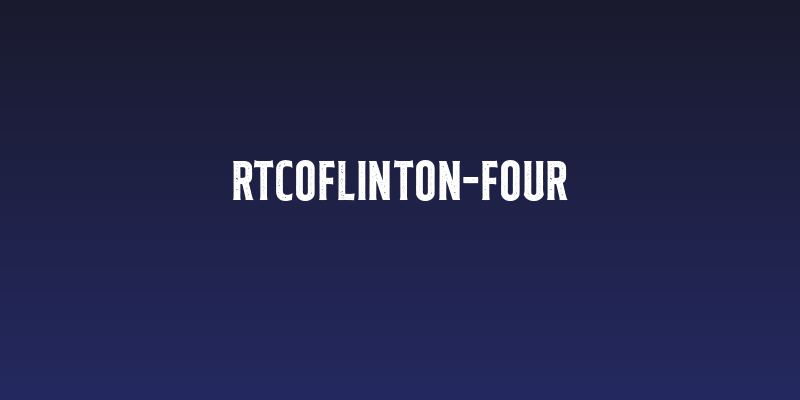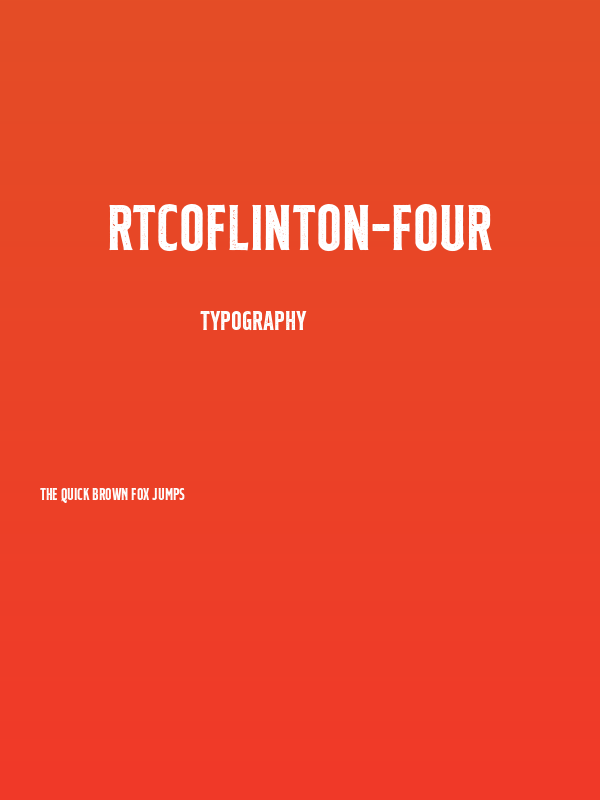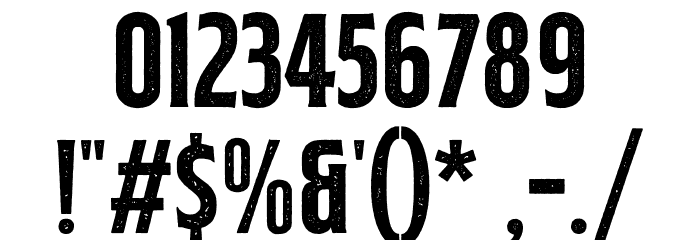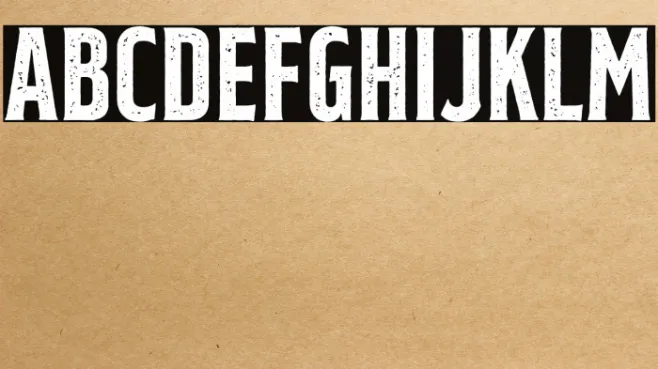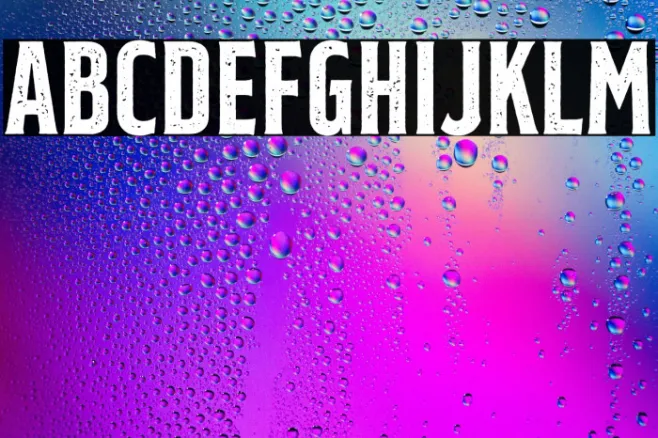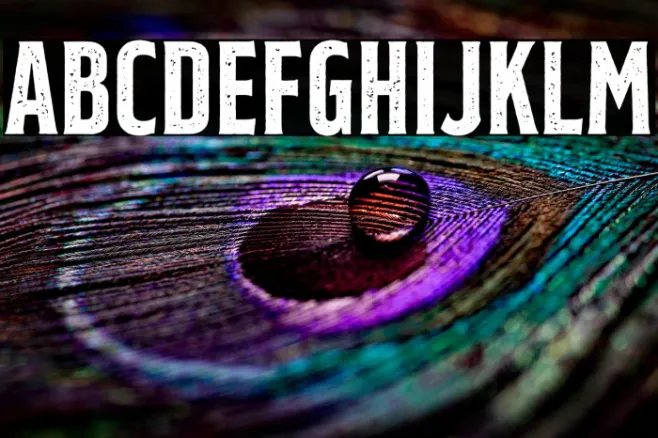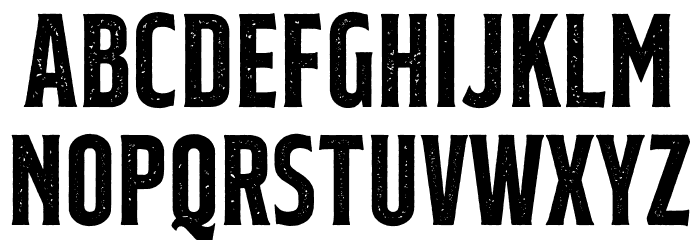
RTCOFlinton-Four Font
RTCOFlinton-Four Description
This font features a bold, textured appearance with a distressed, vintage aesthetic. The uppercase letters are strong and commanding, while the numbers and special characters maintain the same rugged style. The texture gives it a worn, rustic feel, making it ideal for projects that require a touch of nostalgia or a handcrafted look. The characters are evenly spaced, ensuring readability despite the boldness. The font's style is reminiscent of old signage or posters, adding a historical or retro vibe to any design.
| Proposed Projects | Ideal for vintage-themed posters, retro branding, signage, and apparel design. |